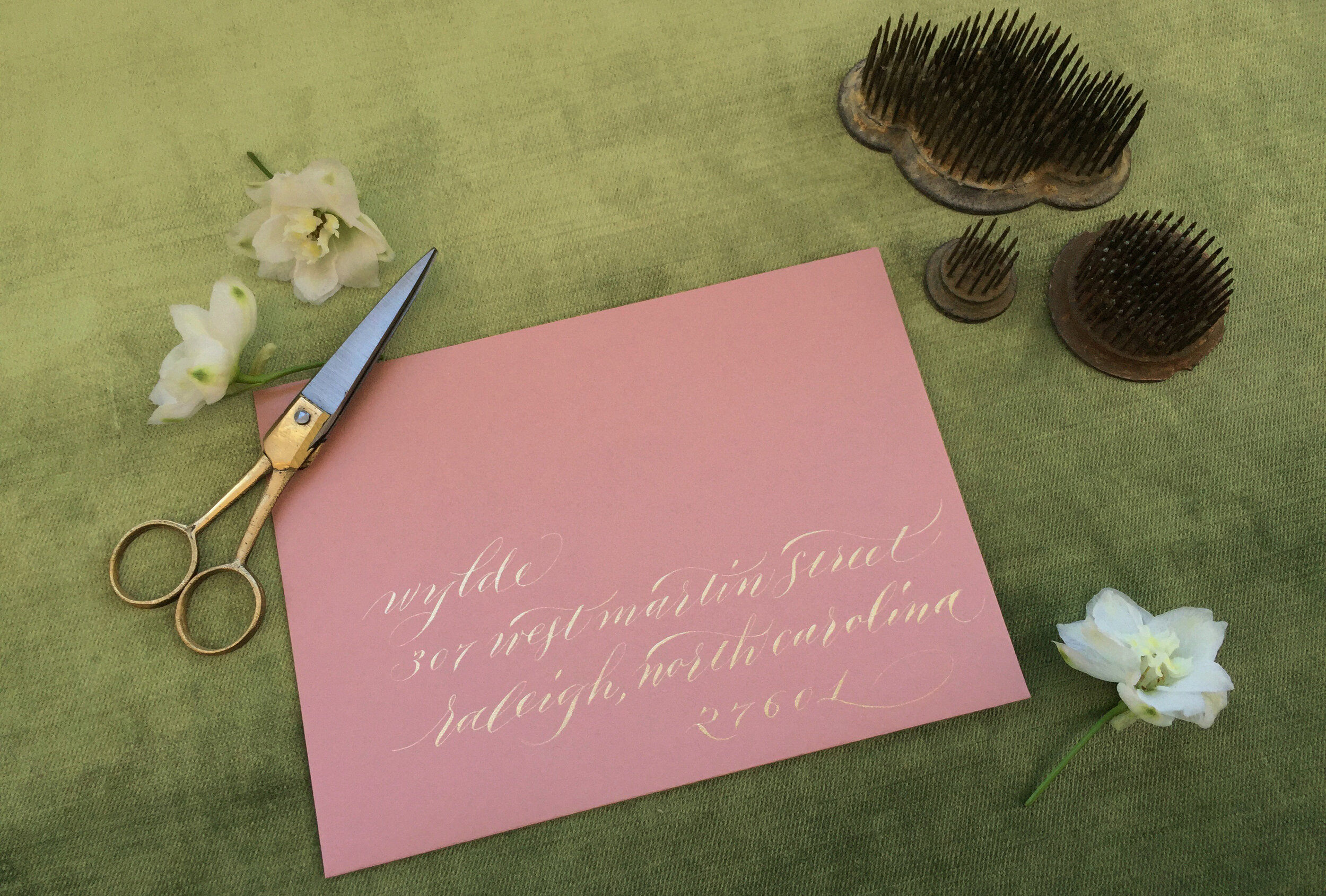
Handmade Letters x Wylde Envelopes
Raleigh, N.C. – These beautiful photographs were shot by Nikelle Orellana-Reyes, whose floral design studio Wylde served as my sample address. Nikelle’s selection of botanicals and decorative objects helped bring out the elegant and sometimes whimsical feel of the calligraphy. Styles depicted here are my interpretations of traditional Copperplate and Spencerian, as well as more modern lettering variations.